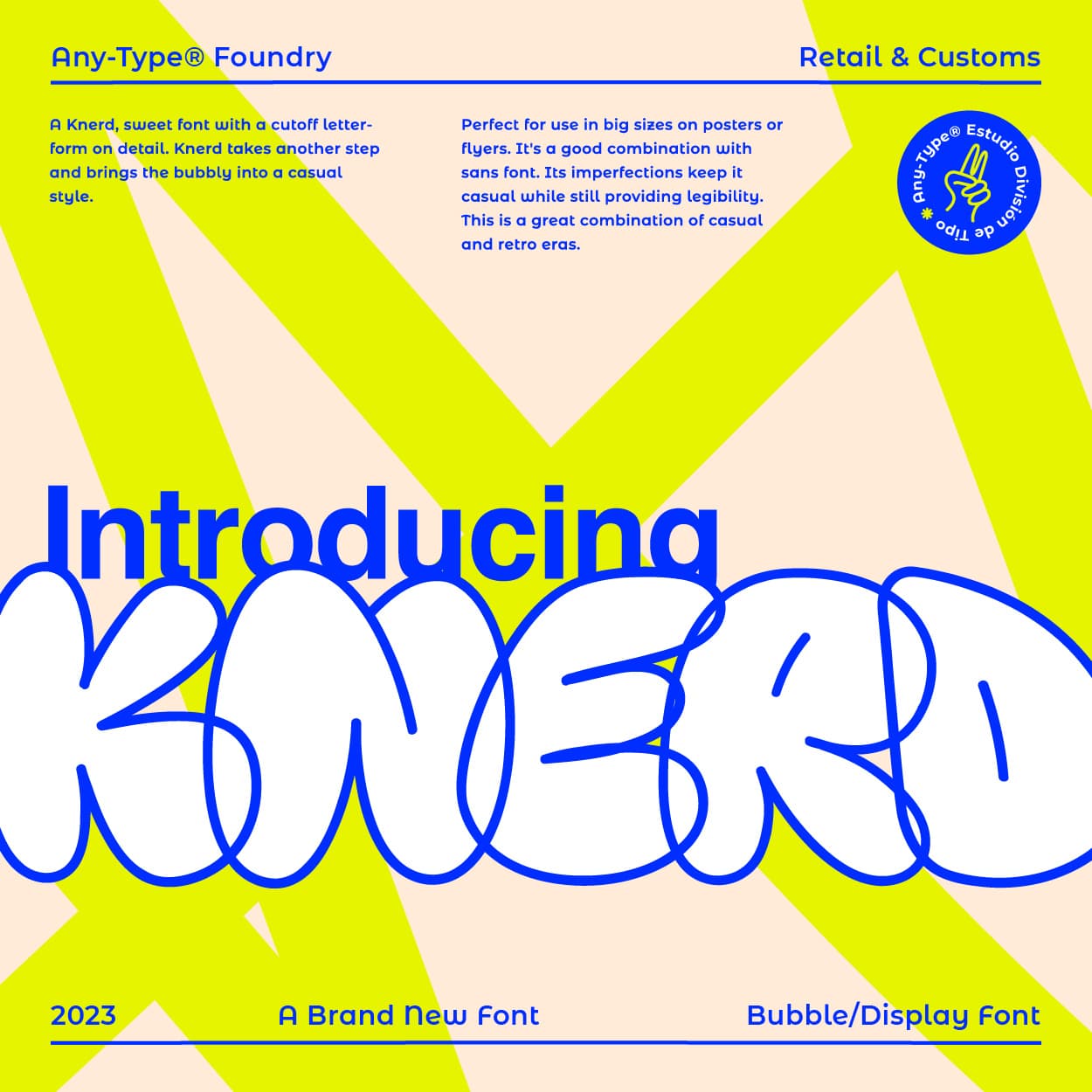
<p>Introducing Knerd, a sweet bubble and rounded font featuring a graffiti touch and a unique cutoff letterform. This font effortlessly combines casual style with a retro vibe, making it ideal for large-scale applications like posters or flyers. Despite its imperfections, Knerd retains excellent legibility, perfectly blending with sans font.</p><p><br></p><p>It comes in two styles: filled and outline. Offering multilingual support, numbers, and punctuation, Knerd is truly a versatile and characterful font for any design project.</p>